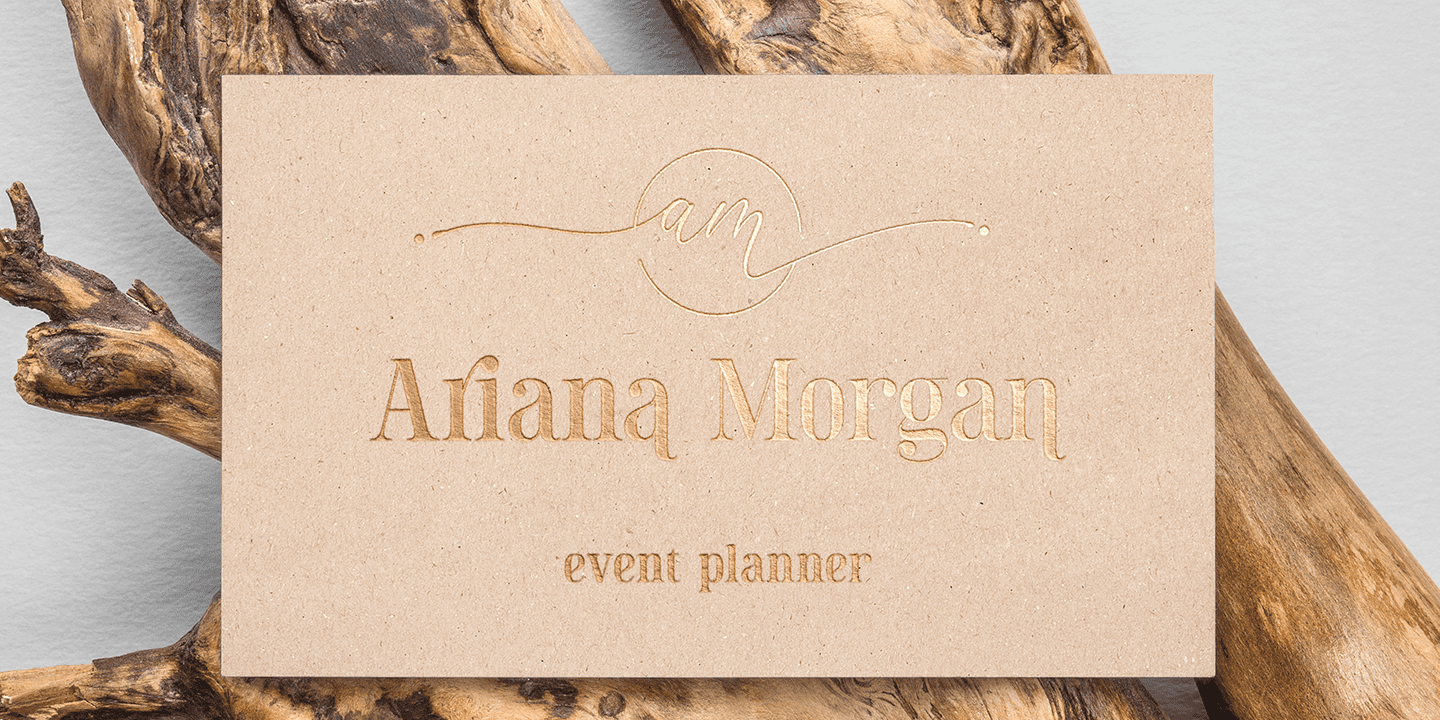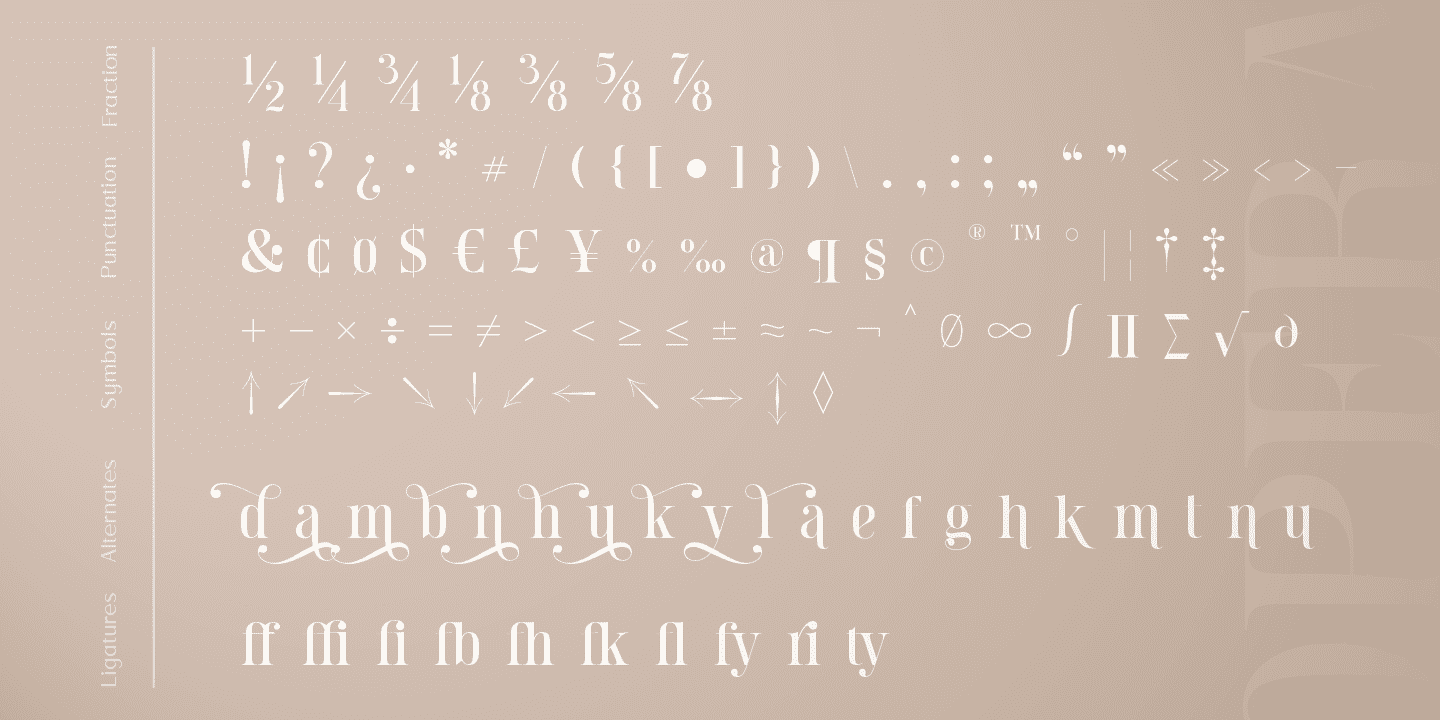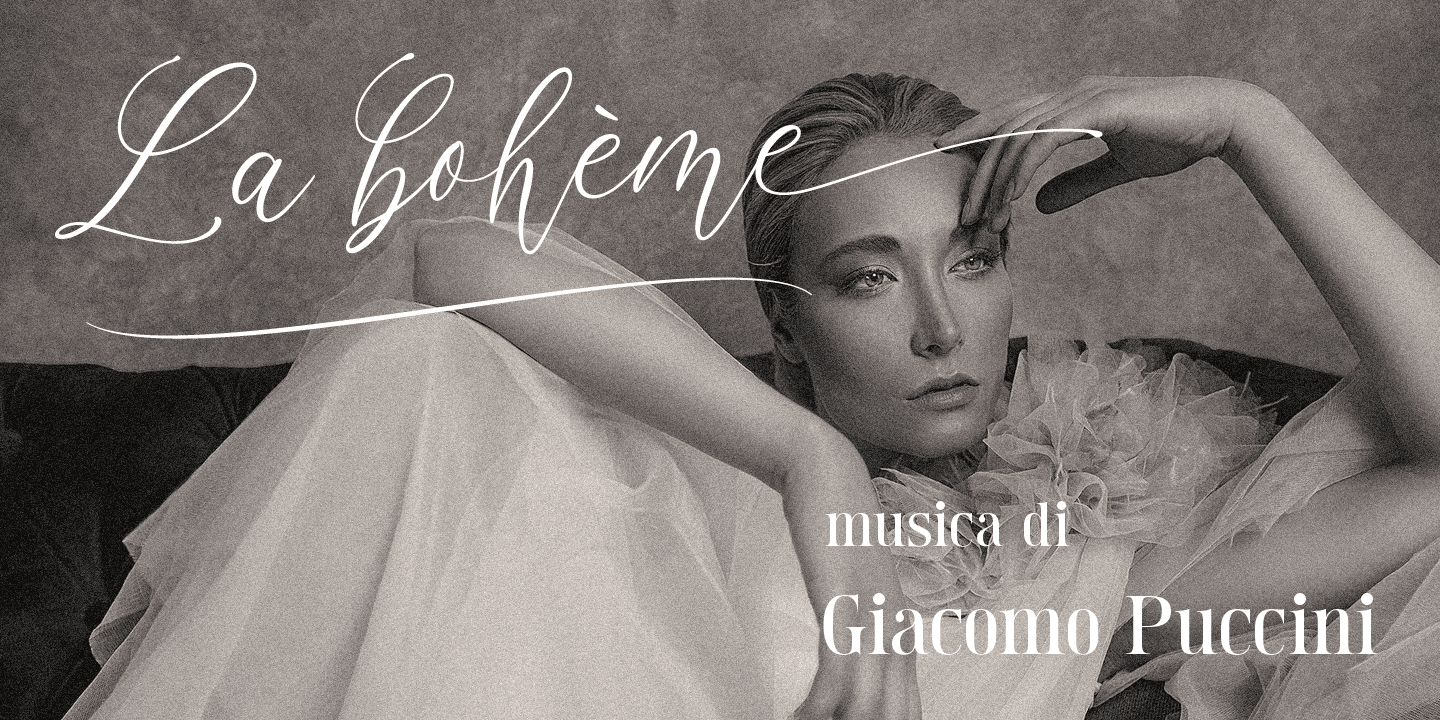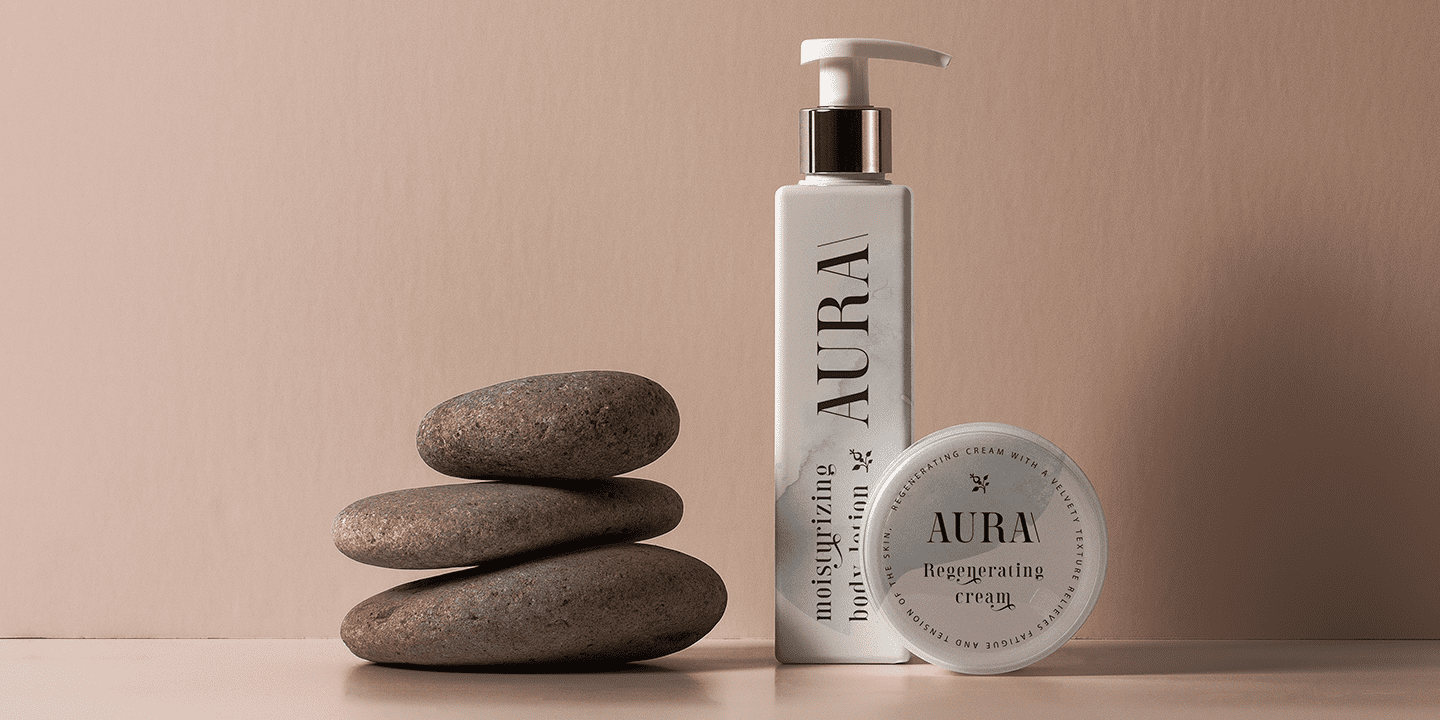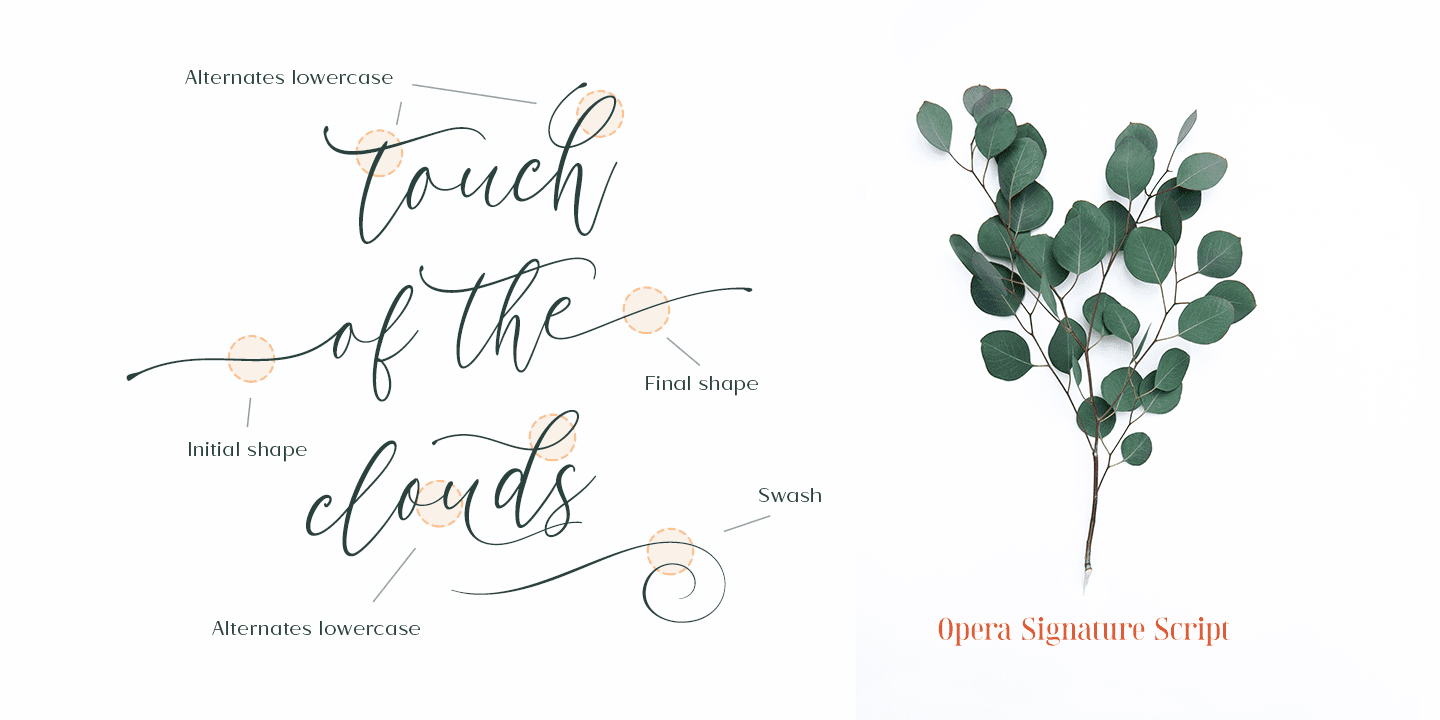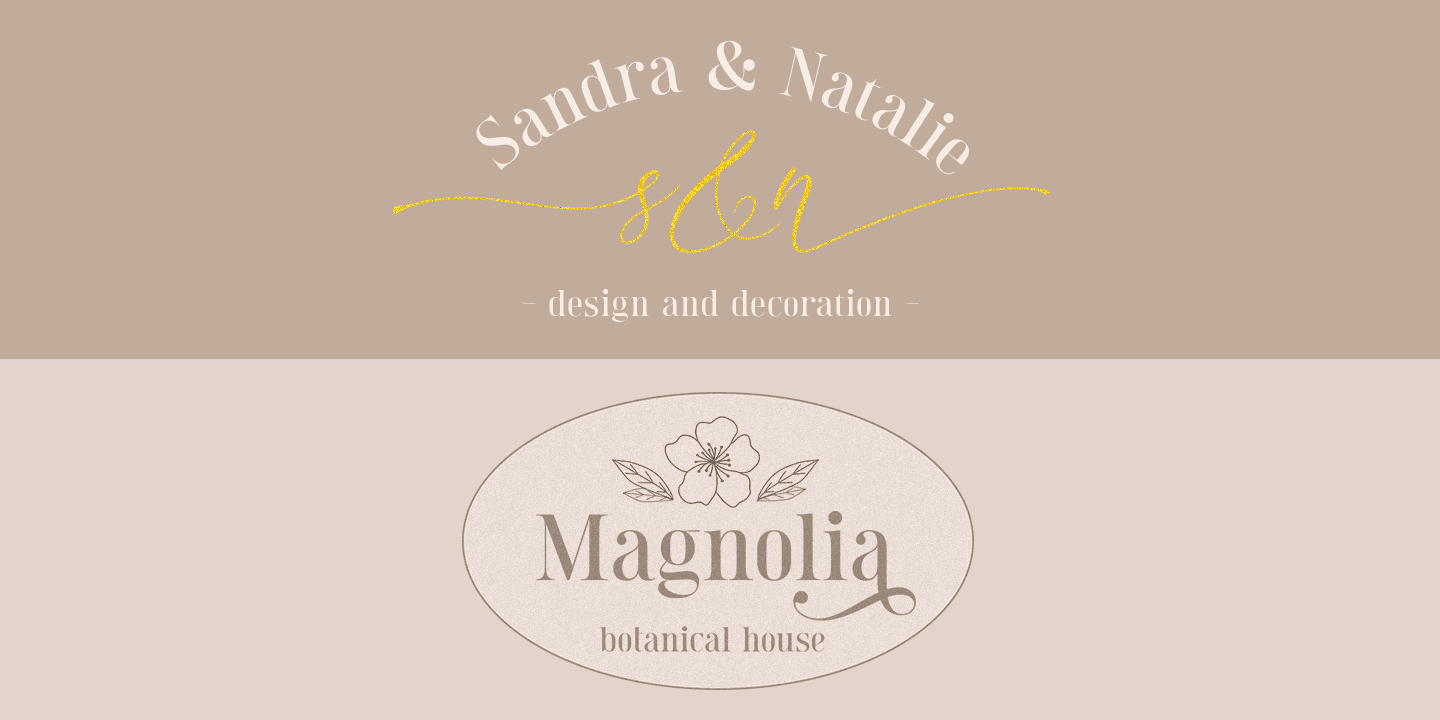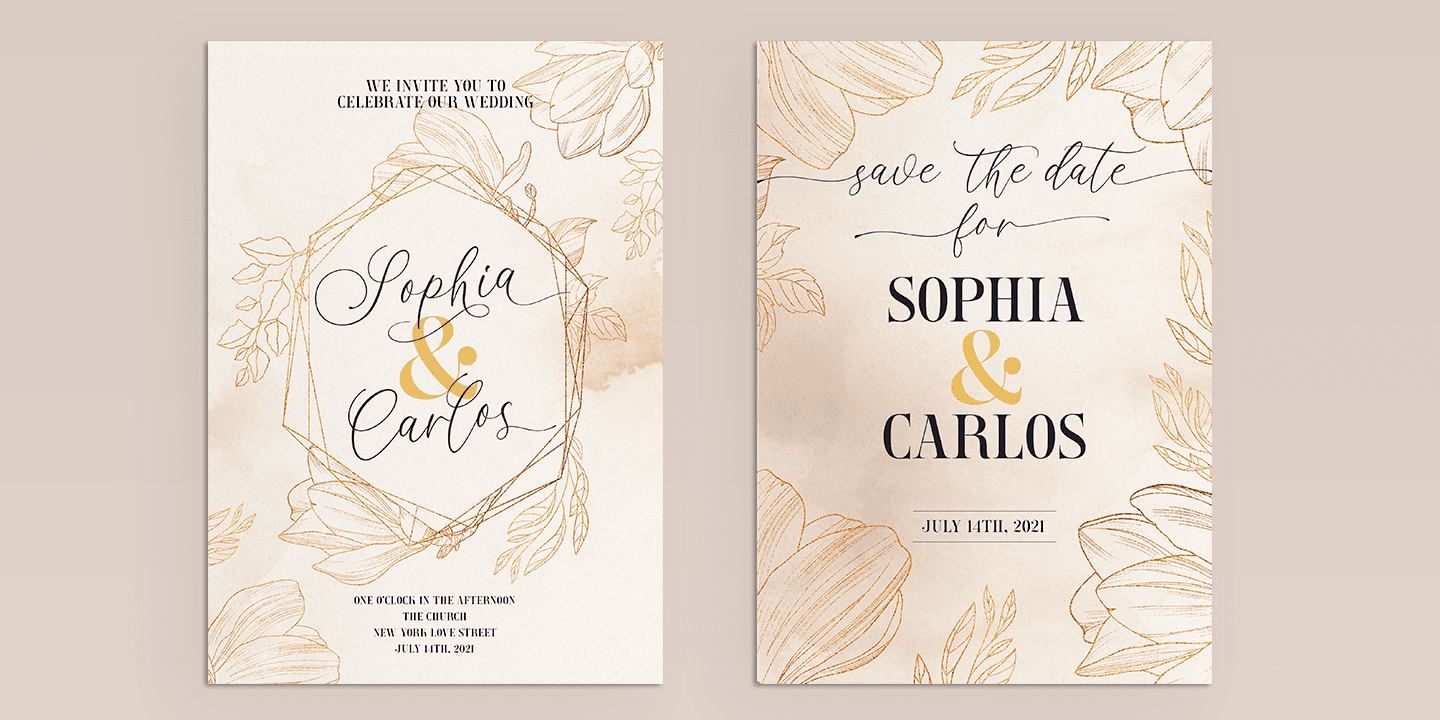
Opera Signature Family (3 fonts)
The Serif font is a contrasting elongated font that is suitable for a wide variety of projects, such as: logos, labels, branding projects, magazines, home goods design, food packaging, wedding invitations, quotes, posters and much more. It also includes many ligatures and alternates which will add uniqueness to your project. The Script font is a handwritten modern calligraphy font that includes many alternates and swashes.
You can use these fonts individually or together as they pair well together. This font is easy to use and has OpenType features.